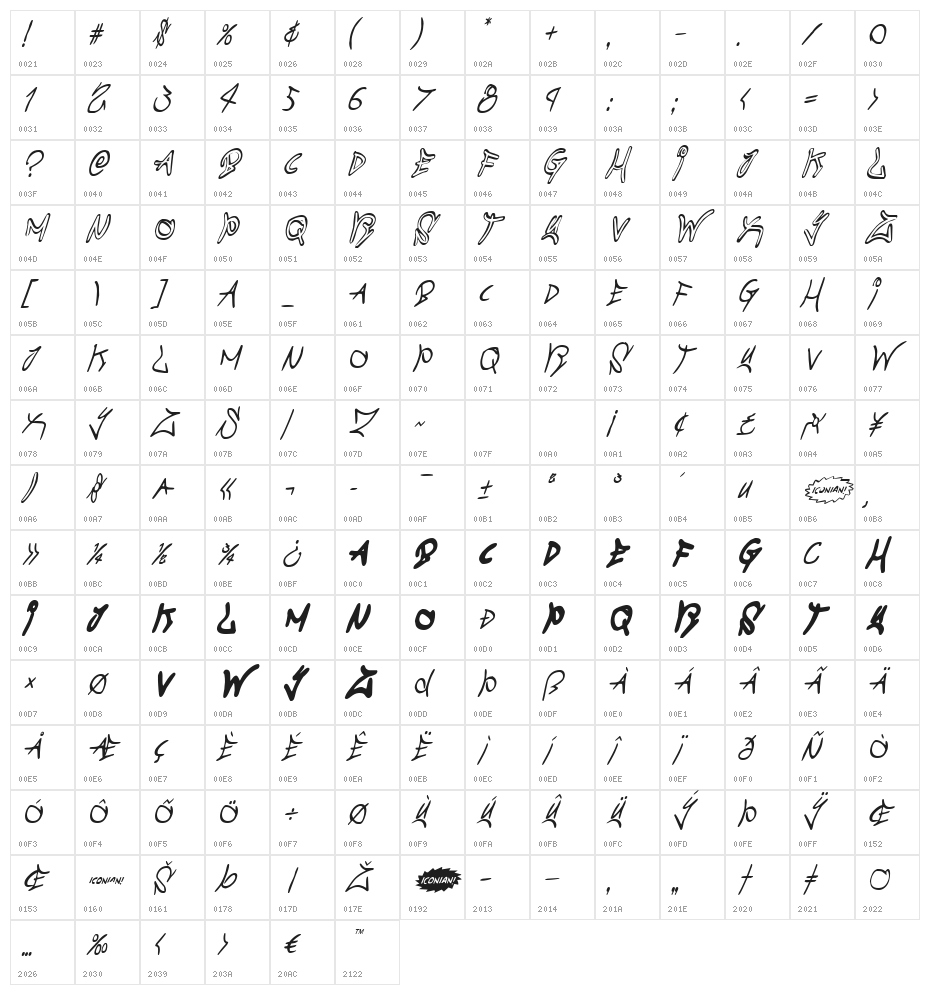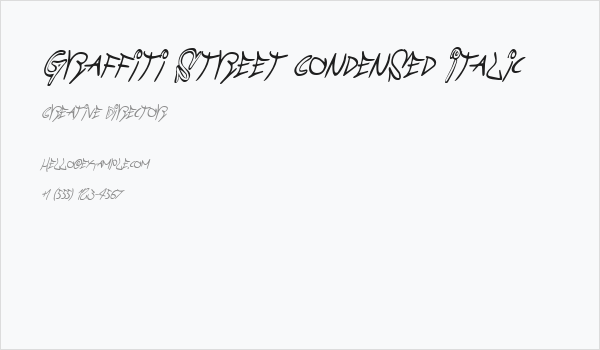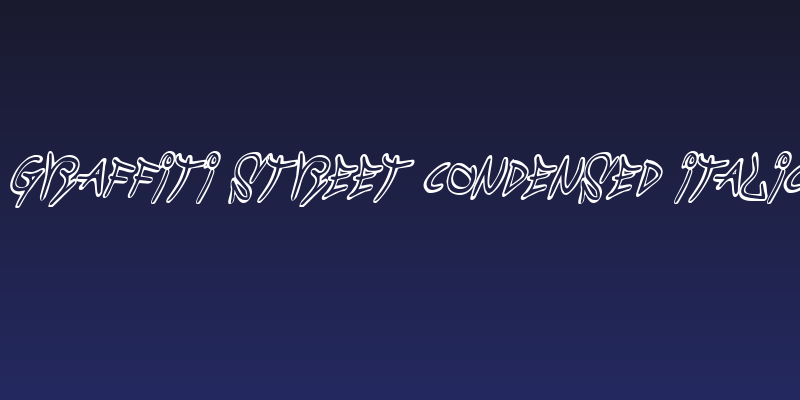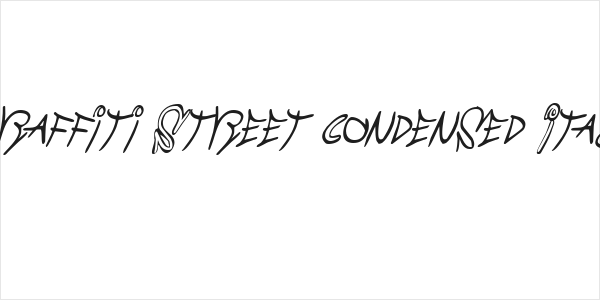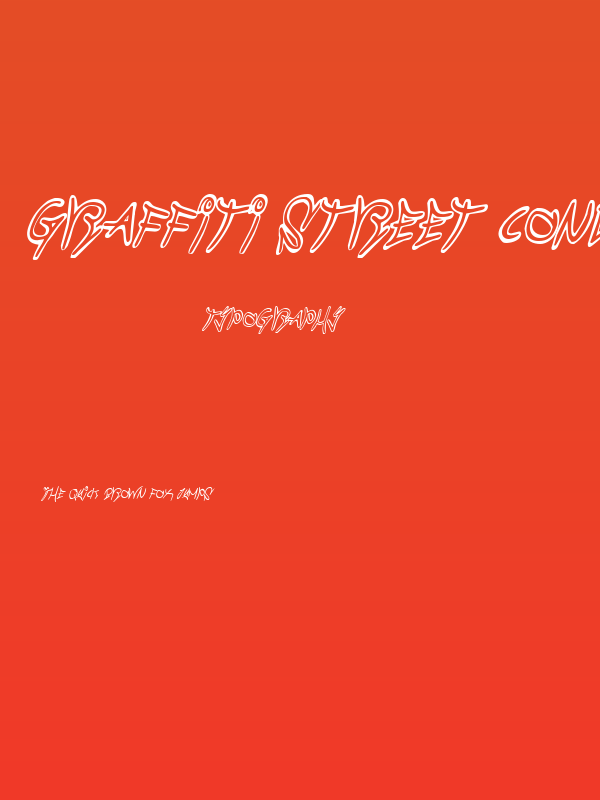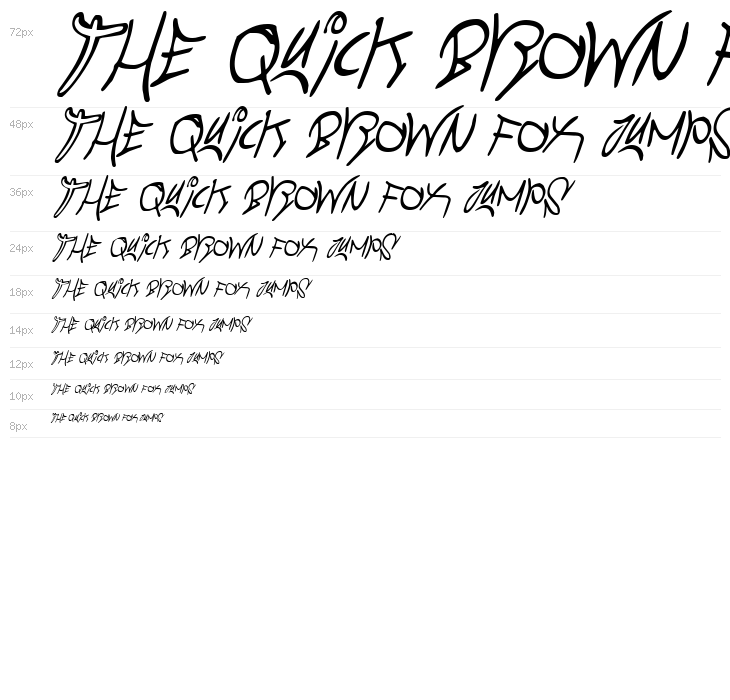
Graffiti Street Condensed Italic Font
Graffiti Street Condensed Italic Description
This font exudes a dynamic and edgy style, reminiscent of urban graffiti art. The characters are bold and condensed, with a distinct italic slant that adds a sense of motion and energy. Each letter features sharp angles and fluid curves, creating a visually striking appearance. The uppercase and lowercase letters maintain a consistent style, while the numerals and special characters integrate seamlessly with the overall design. This font captures the rebellious spirit of street art, making it ideal for projects that require a bold and unconventional aesthetic.
| Overall Style | Modern, Urban, Edgy |
| Proposed Projects | Ideal for street art-inspired designs, music album covers, urban-themed posters, and edgy branding projects. |
| Author | Fonts by Måns Grebäck |